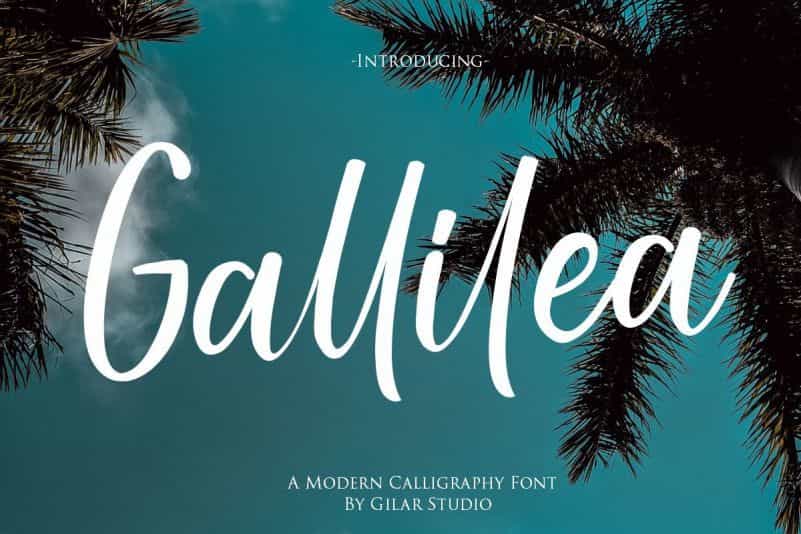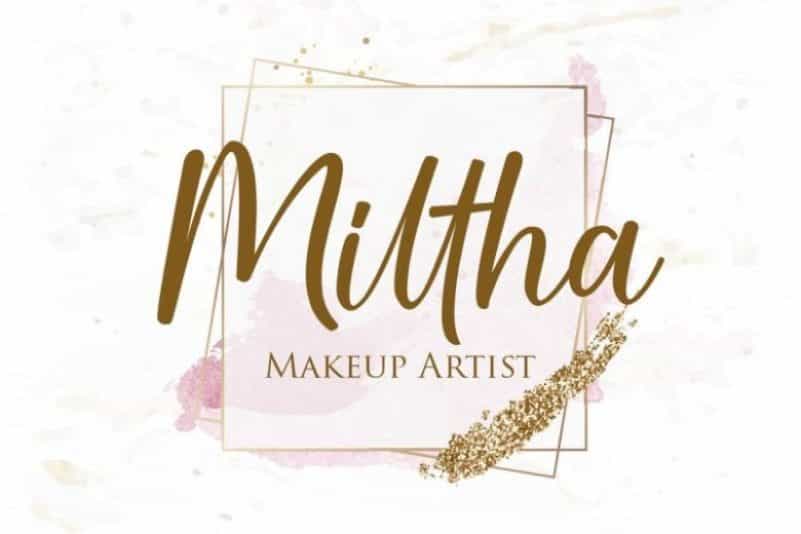
Discover Gallilea Font, part of the Calligraphy Handwritten collection—a versatile and unique font perfect for adding a personal touch to your projects. Download it for free and enjoy crafting designs with style, from invitations to social media posts. This font is available exclusively for personal use, giving you the freedom to create without limits. Unlock your creativity with Gallilea Font today!
Gallilea font is perfect for branding and will add elegance to any logo, are perfect for wedding invitation or your blog. And with their assistance, you can make a logo or beautiful frame for your home. Or just for small business, book covers, stationery, marketing, magazines and many others.